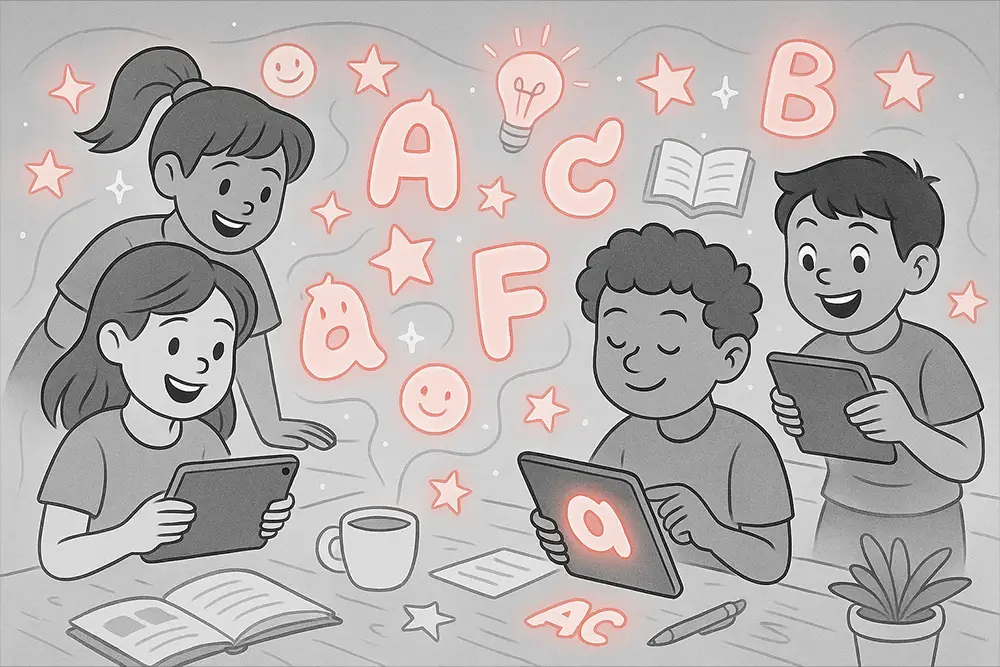
Every parent and teacher wants kids to love learning. But here’s the truth: even the best-designed education app can fall flat if the typography isn’t right. Fonts aren’t just decorative—they set the tone for how kids read, interact, and stay focused. That’s where education app fonts come in. The right font can make a child smile while reading, encourage them to tap the screen, and even help them remember what they learn.
Designers, freelancers, and app creators: this is your golden opportunity. Choosing the perfect education app fonts means creating experiences that are playful, brain-friendly, and engaging enough to keep kids coming back.
Children process visuals faster than adults. A cluttered or stiff font might overwhelm them, while a friendly, rounded typeface makes reading feel like play. Studies show that typography directly influences comprehension and retention in young readers (WebDesignerDepot).
Kids need fonts that are fun but don’t sacrifice clarity. Letters must be recognizable at a glance.
Bigger letterforms make it easier for little fingers to tap, swipe, and interact.
Rounded edges, soft strokes, and balanced spacing reduce cognitive load, making reading less intimidating.
Here’s our curated selection of education app fonts from Figuree Studio—crafted to make kids’ apps joyful, engaging, and irresistible. Each font brings its own playful personality while ensuring clarity and usability.
Kids Zone is a layered font designed with vibrant energy, perfect for alphabet-learning apps. Its stacked styles let you add depth and fun—making kids feel like they’re inside a game. If your app teaches letters or numbers, this is your go-to.
This marker-inspired typeface feels like a child’s doodle come alive. With Kidos Marker, quizzes and interactive worksheets feel less like schoolwork and more like fun drawing time.
Playkidz is pure sunshine on screen. Perfect for early readers, it delivers cuteness and clarity in one package. Great for storybook apps where characters need a font as lively as the plot.
Turn your learning app into an adventure. Magic Dreams channels comic-book excitement, giving every challenge a playful “hero” vibe that keeps kids glued to the screen.
Retro, bold, and fun. Komix Eighties feels like cartoons from the weekend mornings kids adore. It’s perfect for gamified lessons, rewards, or playful quizzes.
Every child loves a touch of magic. Unicorn Pop adds sparkles and fantasy into any app, making learning look like playtime in a fairy tale world.
Bring joy and energy to your app’s buttons and labels. Funkie Bunny feels like laughter captured in letters—a font that makes kids want to explore every corner of your app.
Bold strokes, comic charm. Spark Boys keeps attention high in mini-games and challenges. Perfect for scoreboards, pop-up tips, and reward animations.
Quirky and fun, Hello Arsenio turns simple instructions into exciting invitations to play. It works beautifully for creative drawing or puzzle-based apps.
Bright, warm, and welcoming—Summer Sunshine makes every word glow. It’s ideal for positive reinforcement messages like “Great Job!” or “You Did It!”.
Unique and quirky, Grow Boys stands out. It adds personality to apps that want to spark imagination—great for creative thinking and problem-solving games.
With its comic-inspired playfulness, Komica Brought turns lessons into a fun narrative. Perfect for apps with storytelling or role-playing elements.
When picking fonts for kids’ apps, always test readability across screen sizes. A letter that looks fun on a tablet might feel cramped on a smaller phone. Also, balance playfulness with legibility—remember, the goal is to teach, not confuse.
For maximum impact, consider pairing fonts: use Kids Zone for headlines and Playkidz for body text. This keeps the interface engaging without sacrificing clarity.
“Typography is what language looks like.” — Ellen Lupton
When applied to education apps, this truth hits even harder. Kids don’t just read words—they experience them. A playful typeface can transform reading from a chore into an adventure.
At Figuree Studio, we’ve seen how fonts like Kidos Marker or Magic Dreams instantly capture attention. They don’t just decorate the app; they actively shape how kids feel about learning. And when learning feels fun, engagement skyrockets.
Choosing the right education app fonts isn’t just about aesthetics—it’s about unlocking joyful learning. Fonts like Kids Zone, Playkidz, and Unicorn Pop help children read faster, tap with curiosity, and build positive memories around education.